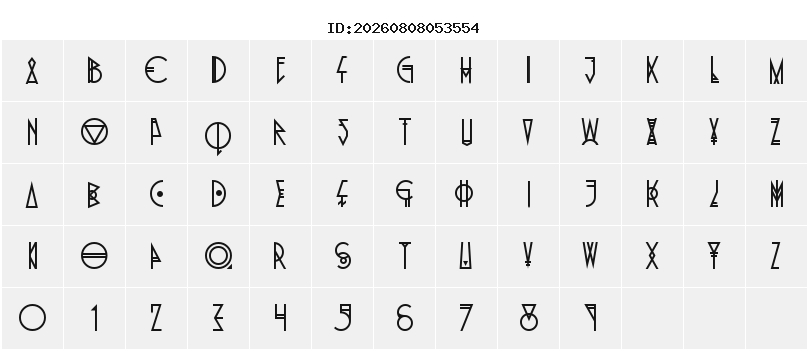
• Font Name: Pride Of The Young
• Full Font Name: Pride Of The Young
• Version: v1 by Andrew Hart - Dirt2.com/SickCapital.com - 10/14/2014
• Designer: Dirt2.com
• Description: v1 October 13, 2014 - by Andrew Hart - Dirt2.com/SickCapital.com
About Pride Of The Young.ttf
Pride Of The Young.ttf is a modern, elegant sans-serif font designed for ultimate readability and visual harmony. Perfect for branding, headlines, web design, and print materials.